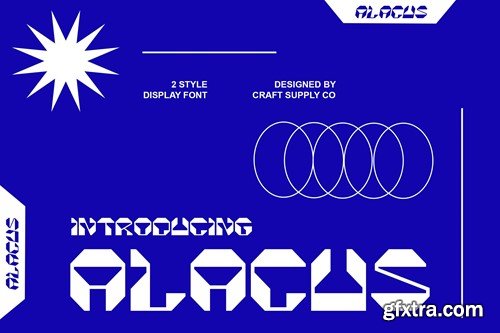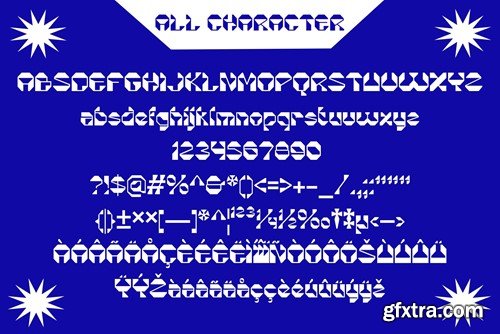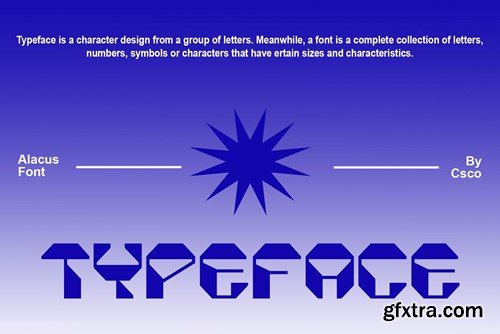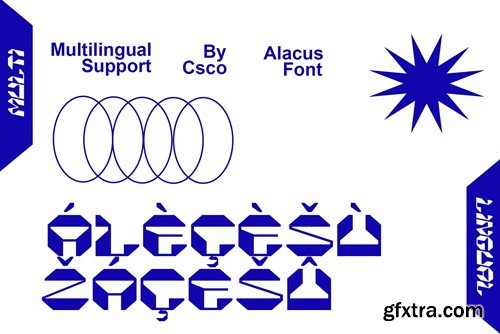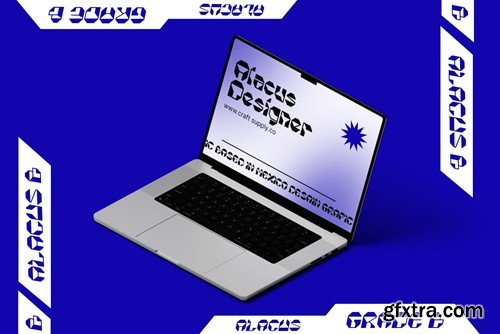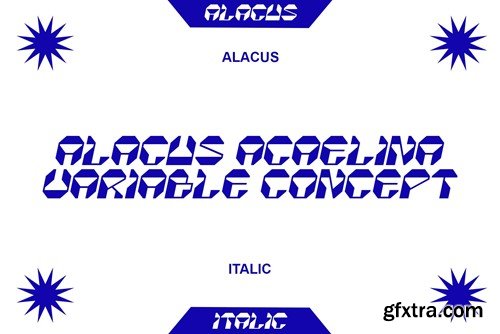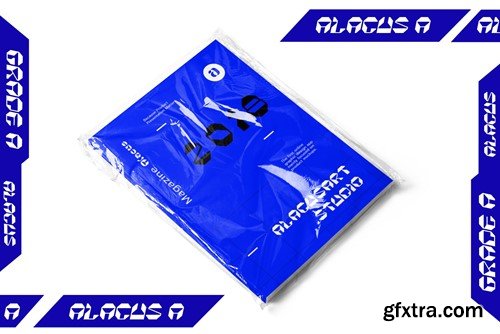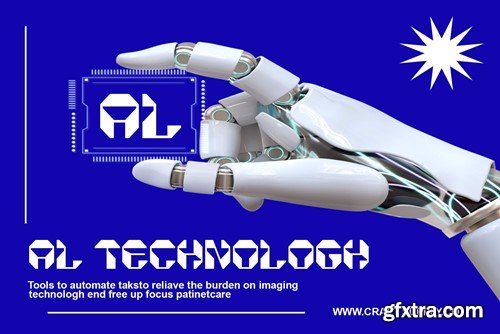
Alacus: A Futuristic Marvel in Typography Futuristic Essence Alacus, a mesmerizing display font, draws inspiration from mecha aesthetics, unleashing a futuristic vibe that transcends conventional typographic boundaries. Its geometric precision and bold lines reflect a seamless fusion of modern design and advanced technology. Sleek Meets Robust This font seamlessly blends sleek design elements with robust mecha-inspired details, creating a visually stunning and technologically advanced typographic experience. The careful balance between sleek curves and intricate details makes Alacus both captivating and highly readable, ensuring it stands out in any application. Versatility Redefined Alacus transcends the ordinary, offering versatility for diverse applications, from cutting-edge digital interfaces to sci-fi-themed print designs. Whether used for titles, headings, or other display purposes, Alacus injects a futuristic flair into every project. Impactful Typography The bold, futuristic strokes of Alacus command attention, making it an ideal choice for projects where making a lasting visual impact is paramount. Its striking presence on screens or in print ensures that Alacus delivers a memorable and impactful typographic experience. Conclusion Alacus is more than a font; it’s a journey into the future of typography. With its mecha-inspired allure, this font elevates any design, pushing the boundaries of what is possible in futuristic display typefaces. Elevate your projects with the bold, futuristic charm of Alacus, where innovation meets timeless design. What you get : Alacus Regular Alacus Italic Features : Uppercase and lowercase characters Numerals and Punctuation (OpenType Standard) Accents (Supports Multilingual Characters) PUA Encoding You can use this typeface without needing any specialized software. If you have any inquiries or need assistance, please feel free to contact us. We appreciate your support in enhancing your creative projects! Best regards, Craft Supply Co.